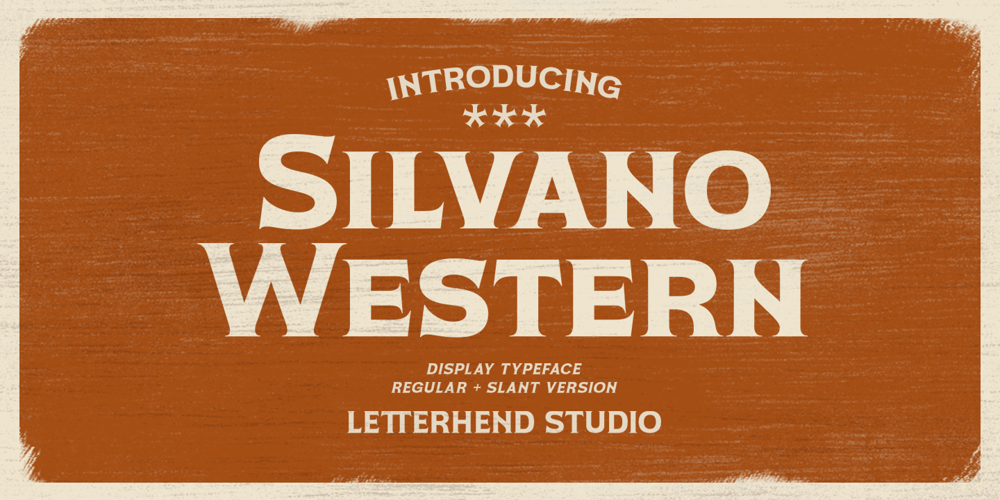
Silvano Western Font Family was designed by Hendry Juanda and published by Letterhend. Silvano Western contains 2 styles and family package options. Silvano Western is a display typeface suitable for design needs with a touch of classic western, especially in logo, and the other various formal forms such as invitations, labels, logos, magazines, books, greeting / wedding cards, packaging, fashion, make up, stationery, novels, labels or any type of advertising purpose.Features : regular and slant version numbers and punctuation multilingual PUA encoded We highly recommend using a program that supports OpenType features and Glyphs panels like many of Adobe apps and Corel Draw, so you can see and access all Glyph variations.Email us to letterhend@gmail.com if you need something! Happy Designing!